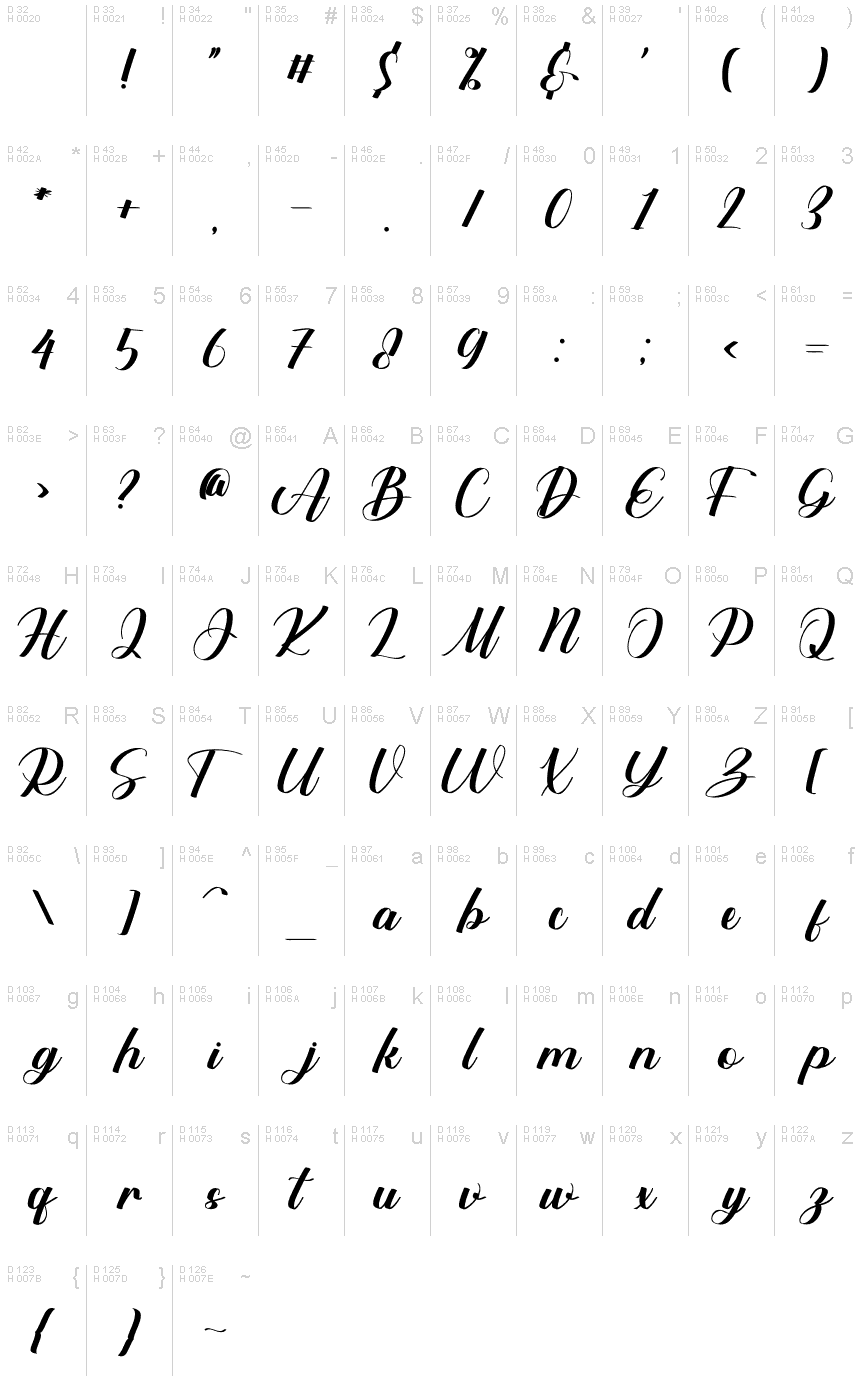
Melaty
Melaty font is a lovely modern calligraphy typeface designed by Fiqiart.
It's suitable for wedding invitations and wedding related material, thank you cards, greeting cards, logo design etc.